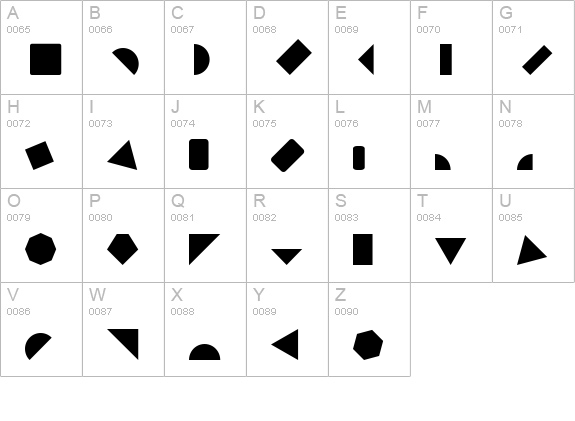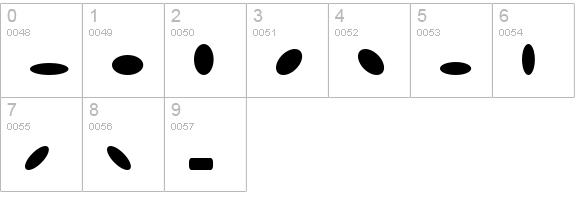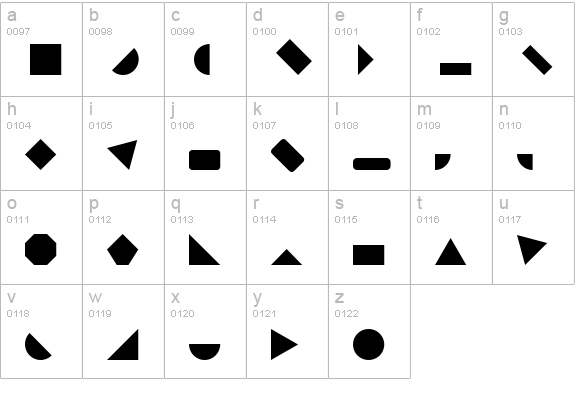
Shape Blocks Solid Font Details
Introducing Shape Blocks Solid, a mesmerizing and innovative typeface that effortlessly captures the essence of geometric precision. This font is the perfect blend of modern design and timeless elegance, making it a versatile choice for a wide range of creative projects. Shape Blocks Solid font features clean lines and bold shapes, resulting in a visually striking and impactful appearance. Its solid and sturdy letterforms exude a sense of stability and confidence, making it an excellent choice for branding, logo design, and headlines that demand attention. What sets Shape Blocks Solid font apart is its ability to seamlessly blend into any design concept, whether it be sleek and minimalistic or vibrant and expressive. Its versatility allows it to adapt to various styles, making it a valuable asset for graphic designers, typographers, and artists alike. But the best part? Shape Blocks Solid font is available for free! Yes, you read that right. This remarkable typeface can be freely downloaded at FontsMarket.com, ensuring accessibility for all creative enthusiasts. So whether you're a professional designer or a hobbyist, you can now enjoy the beauty and functionality of Shape Blocks Solid font without any cost. So why wait? Elevate your design projects to new heights with the captivating and versatile Shape Blocks Solid font. Download it for free today at FontsMarket.com and let your creativity soar.